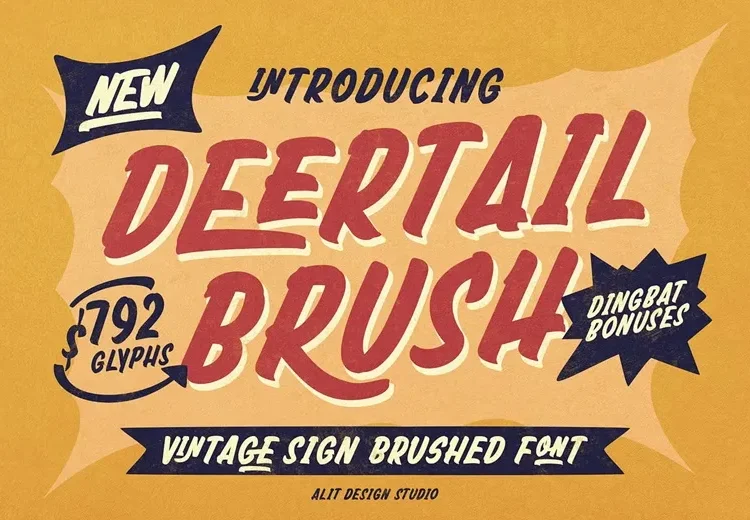
Deertail Brush Font
Introduce your projects to a refreshing take on retro with the Deertail Brush Typeface. This typeface embodies the essence of brush strokes and dynamic writing movement, making it an ideal choice for designs that aim for a vintage aesthetic.
When applied to branding, packaging, large posters, or social media, Deertail Brush adds a punchy, old-school effect that captures attention and evokes nostalgia. Its expressive style brings a unique character to any project, allowing your designs to stand out with a touch of artistic flair.